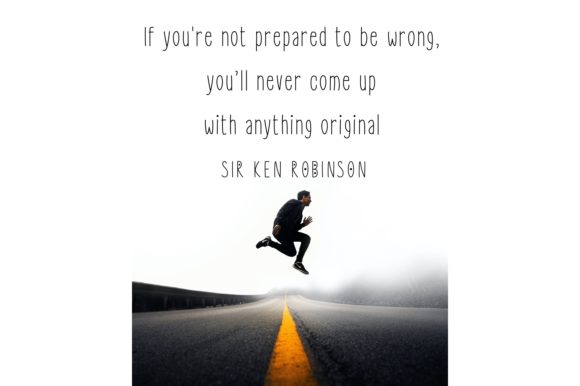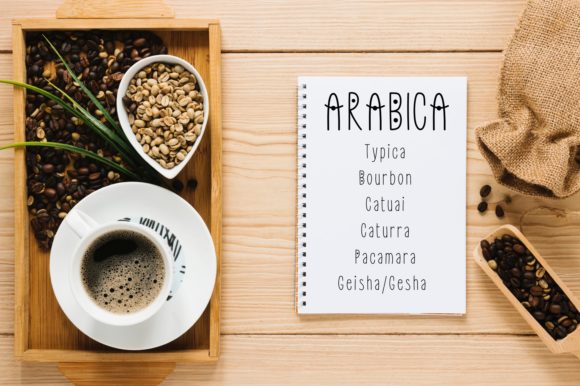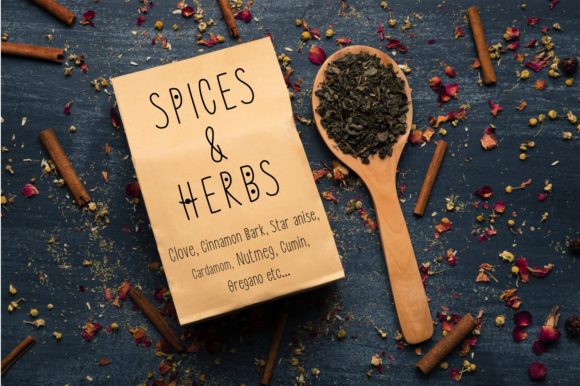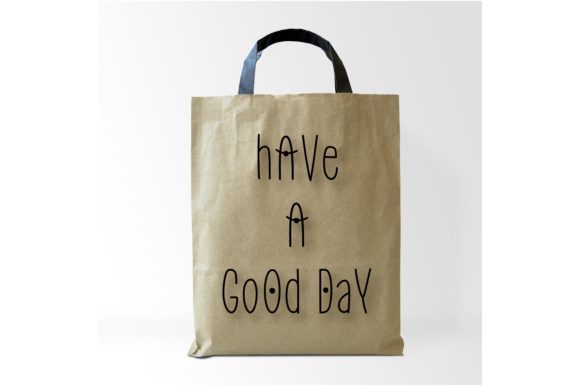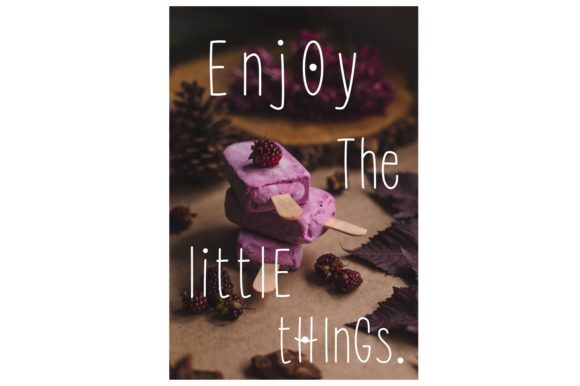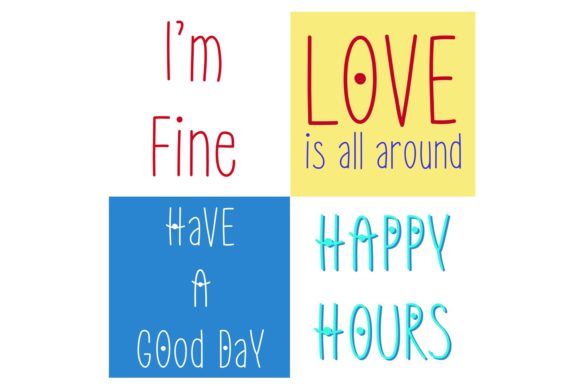
The Designer’s Delight: Exploring the Elegance of Aaron Font
I’ll never forget the time I was working on a project for a client who wanted a font that was both elegant and quirky. I had spent hours scouring the internet for the perfect match, but nothing seemed quite right. That was until I stumbled upon Aaron Font. This thin and tall handwritten font has been a game-changer for me, and I’m excited to share its beauty with you. ✨
Aaron Font has quickly become one of my go-to fonts, and for good reason. Here are a few things that I love:
- ✅ Its versatility: Aaron Font can easily be matched to an incredibly large set of projects, from wedding invitations to brand logos.
- ✨ Its elegance: The font’s thin and tall design makes it perfect for adding a touch of sophistication to any design.
- 💡 Its creativity: Aaron Font’s unique design makes it perfect for adding a touch of personality to any project.
- ⚠️ Limited use in body text: Due to its thin design, Aaron Font may not be the best choice for body text, especially for readers with visual impairments.
- 🤔 Limited availability of stylistic alternates: While Aaron Font does offer some stylistic alternates, it may not have as many options as some other fonts on the market.
The Story Behind Aaron Font
Aaron Font was designed with the goal of creating a unique and elegant handwritten font that could be used for a wide range of projects. The designer, who wishes to remain anonymous, was inspired by classic calligraphy and wanted to create a font that was both refined and approachable.
| Font Name | Aaron Font |
| Author | SENSE LIBRARY |
| What is Aaron Font? | Aaron Font is a thin and tall handwritten font that’s perfect for adding a touch of elegance to any design. |
| Does Aaron Font offer any stylistic alternates? | Yes, Aaron Font offers some stylistic alternates, including glyphs and ligatures. |